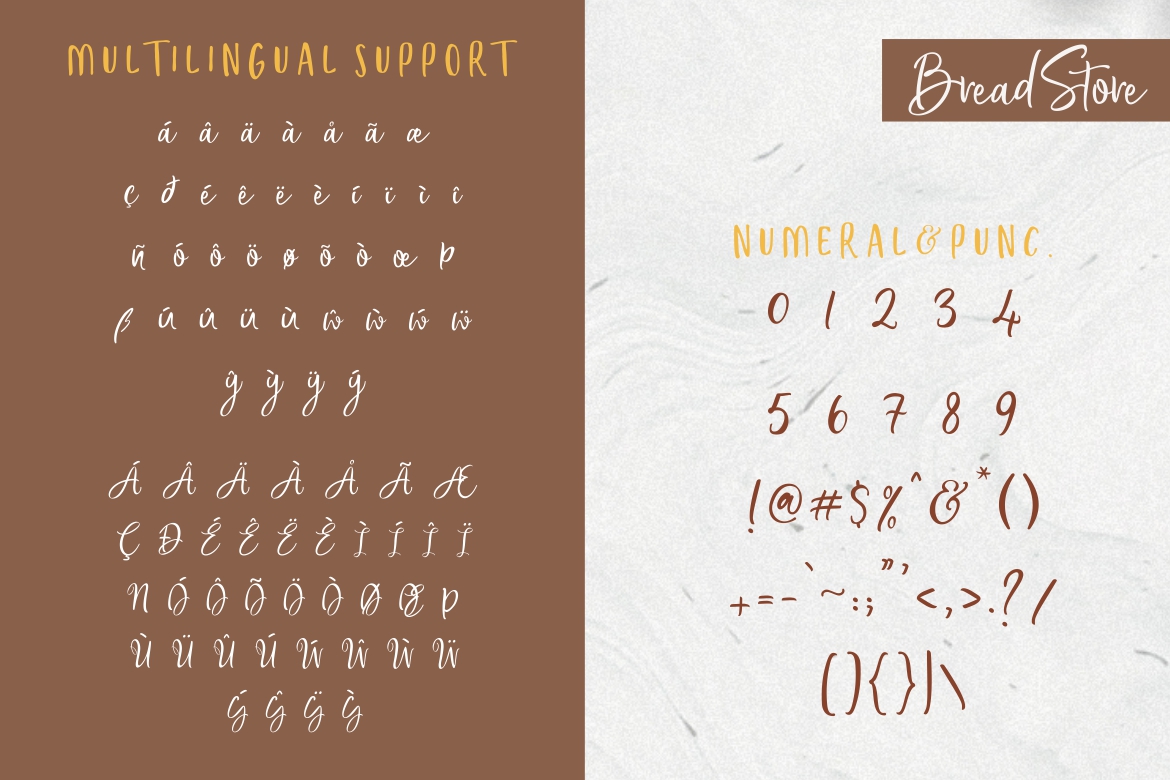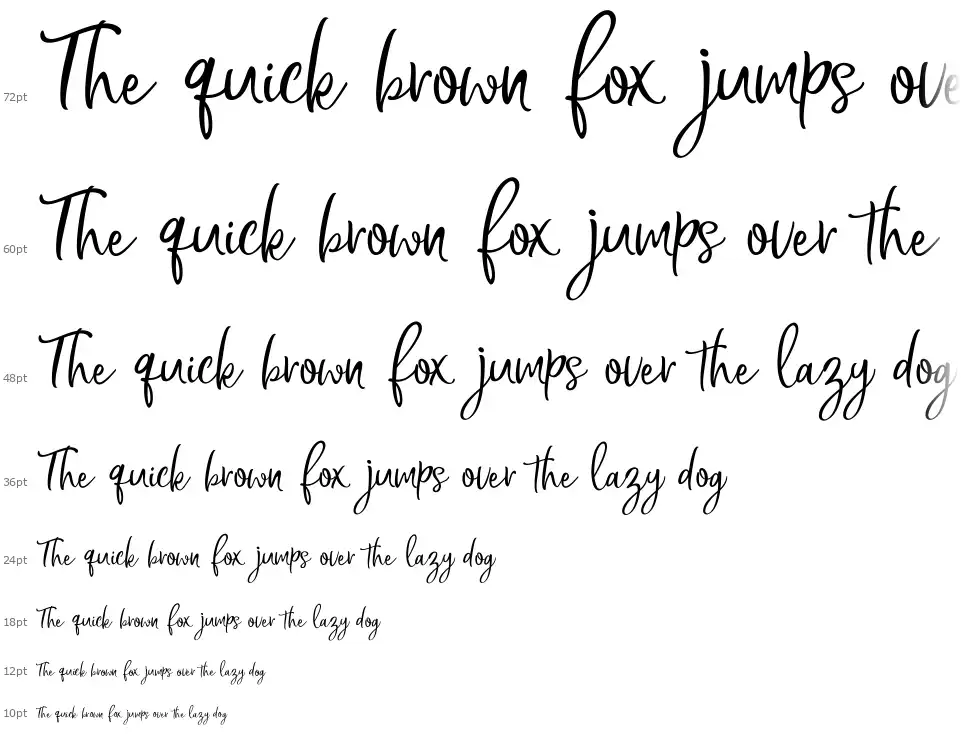
Bread Store Font . bread store font is a fun script font duo designed with an iconic curly and comical style. free download of bread store font. 20,589 downloads free for personal use. You can download the bread store font to your. bread store by hansco. Click now to create a custom image with your. bread store font family designed by burhan afif has a total of 1 different styles. It perfectly represents rustic in clean lines and modern way. bread store is an fun script font duos designed with curly and comical style. Moreover, you can embed it to your website. download free bread store font, view its character. bread store font will look outstanding in any context, whether it’s being used on busy backgrounds or as a standalone headline!.
20,589 downloads free for personal use. bread store by hansco. It perfectly represents rustic in clean lines and modern way. bread store font will look outstanding in any context, whether it’s being used on busy backgrounds or as a standalone headline!. free download of bread store font. Moreover, you can embed it to your website. bread store is an fun script font duos designed with curly and comical style. bread store font family designed by burhan afif has a total of 1 different styles. You can download the bread store font to your. bread store font is a fun script font duo designed with an iconic curly and comical style.
Bread Store Font bread store font is a fun script font duo designed with an iconic curly and comical style. bread store by hansco. bread store font family designed by burhan afif has a total of 1 different styles. You can download the bread store font to your. bread store is an fun script font duos designed with curly and comical style. bread store font is a fun script font duo designed with an iconic curly and comical style. Moreover, you can embed it to your website. It perfectly represents rustic in clean lines and modern way. free download of bread store font. Click now to create a custom image with your. download free bread store font, view its character. bread store font will look outstanding in any context, whether it’s being used on busy backgrounds or as a standalone headline!. 20,589 downloads free for personal use.